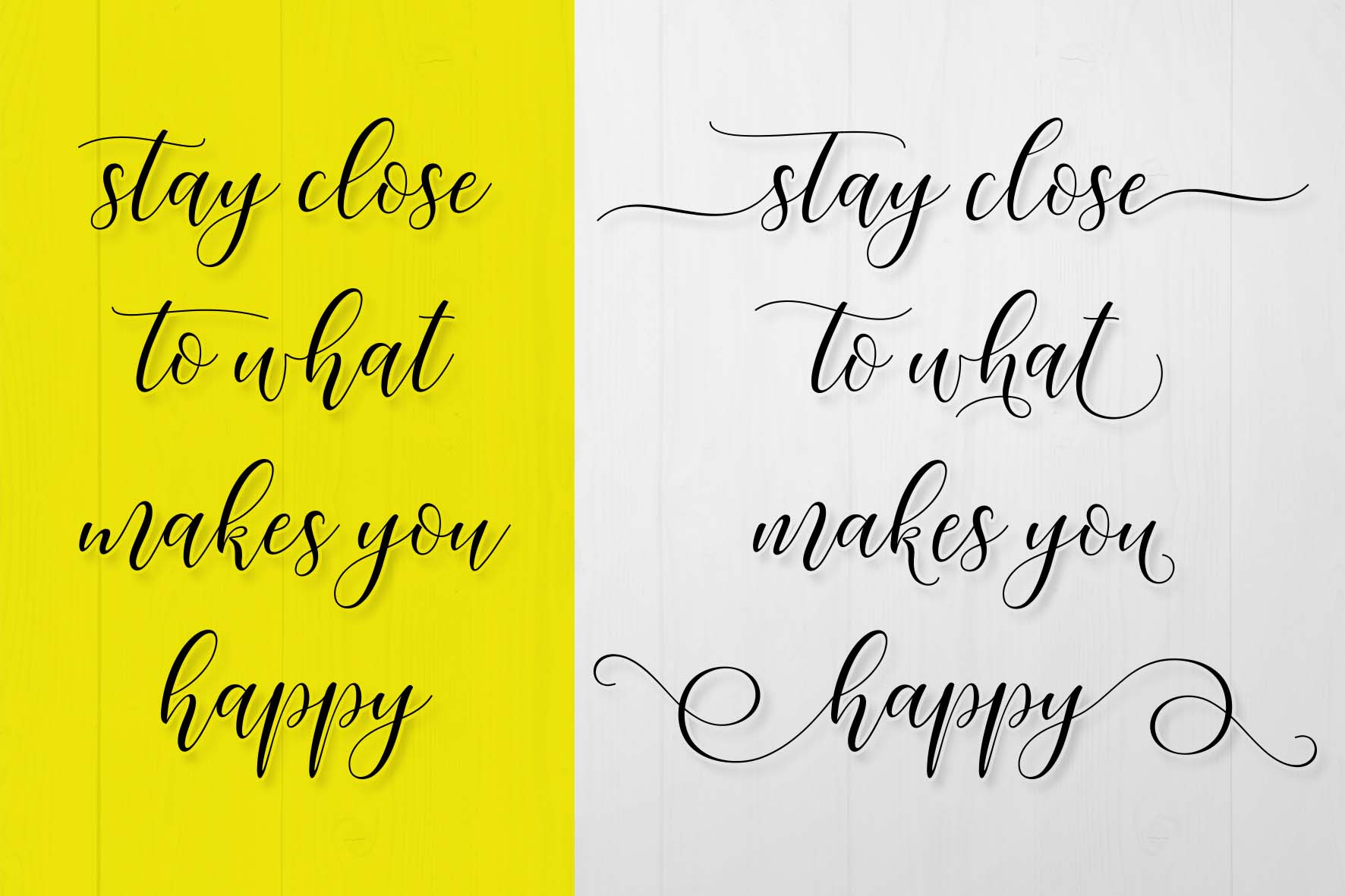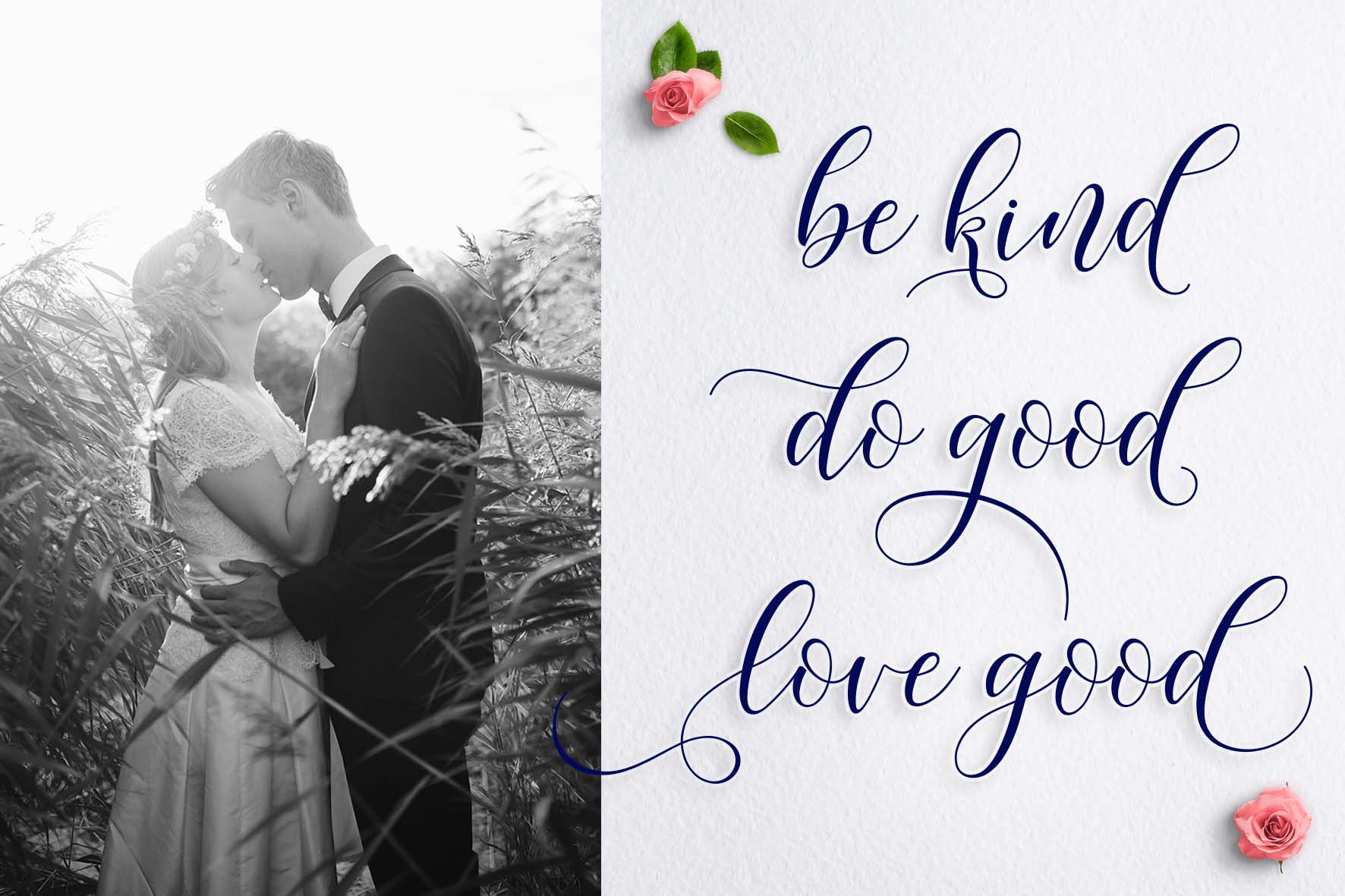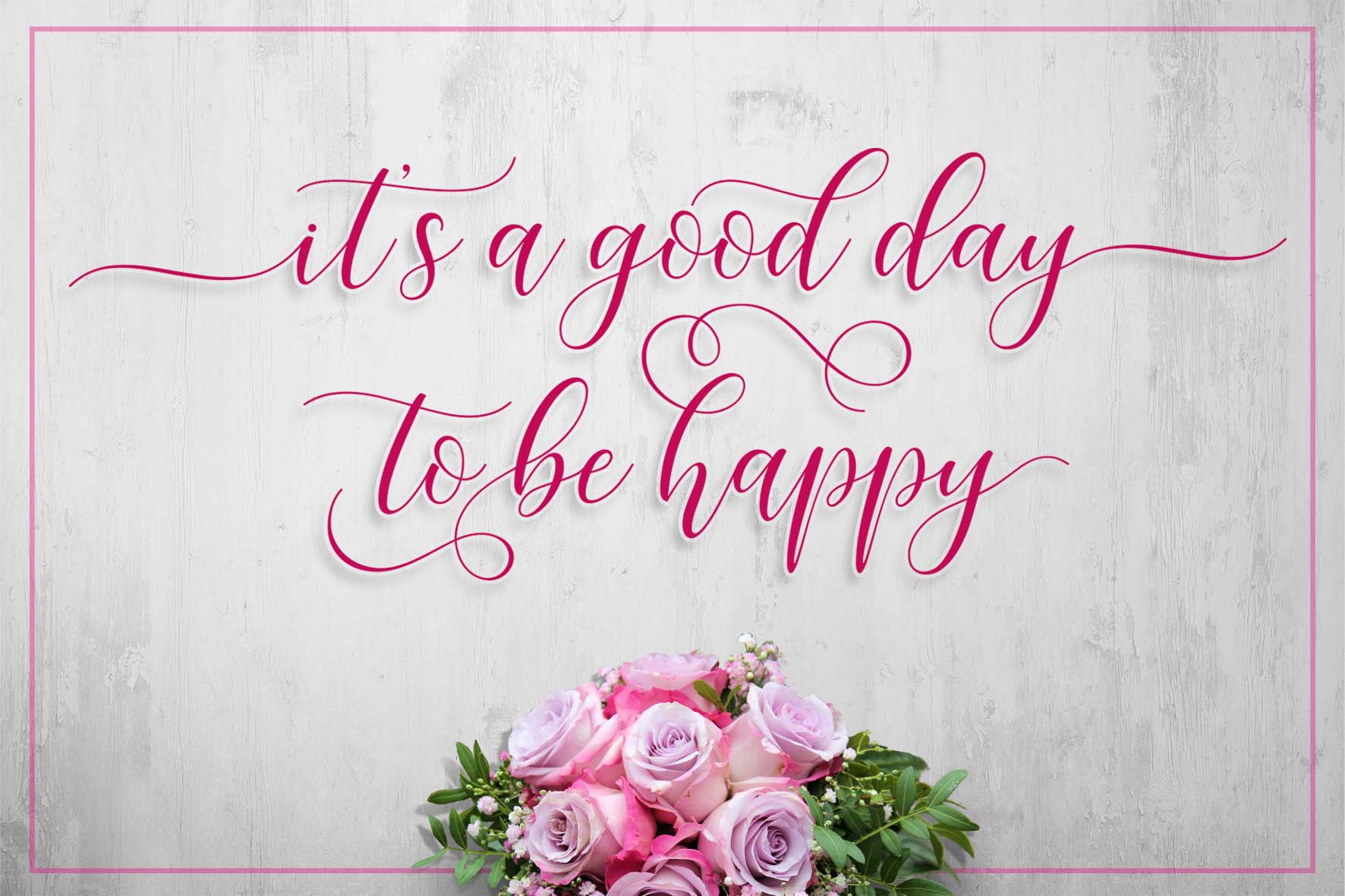
Unlocking the Creative Potential with Maheisa Font
As designers, we’ve all been there – staring at a blank canvas, waiting for the perfect font to bring our creative project to life. It’s that moment when the right typography can make all the difference, elevating our work from ordinary to extraordinary. For those seeking a high-quality design resource, the Maheisa Font is an exceptional choice.
With its modern aesthetic and carefully crafted letters, the Maheisa Font is designed to make a statement. Whether you’re working on a free download or a paid project, this versatile font is sure to impress. Its transparent background and extensive OpenType features make it an ideal choice for designers who value flexibility and creativity.
As a valuable resource for designers, the Maheisa Font offers a unique combination of style and functionality. With over 600 unique glyphs, including alternates and swashes, this font is perfect for designers who want to take their work to the next level.
Key Features of Maheisa Font
• Unique Script Font Style: Maheisa Font offers a beautiful, elegant script font style perfect for creative projects requiring a touch of sophistication.
• High-Quality Design: This font is designed with precision and attention to detail, ensuring a high-quality design resource for any project.
• Transparent Background: Maheisa Font comes with a transparent background, making it ideal for projects where a seamless integration is required.
• Perfect for Creative Projects: Maheisa Font is an excellent choice for designers working on creative projects, such as branding, packaging, and advertising.
Honest Review: Maheisa Font
As a designer, I’m always on the lookout for high-quality design resources to enhance my creative projects. Recently, I came across the Maheisa Font, and I’m excited to share my honest review with you.
• Unique and elegant design aesthetic: The Maheisa Font has a beautiful, modern look that’s perfect for creative projects.
• High-quality design: The font is crisp and clear, making it ideal for both digital and print projects.
While the Maheisa Font is an excellent design resource, there are a few limitations to consider:
• Limited font weights: The font only comes in a few weights, which may limit its use in certain design projects.
• Not ideal for extensive text use: Due to its elegant design, the Maheisa Font may not be the best choice for extensive text use, such as in articles or long-form content.
Overall, I’m impressed with the Maheisa Font, and I believe it’s a valuable addition to any designer’s toolkit. Its unique design aesthetic, high-quality design, and free download make it an excellent resource for creative projects. While it may have some limitations, I highly recommend giving it a try and seeing how it can elevate your designs.
Introduction to Maheisa Font
Maheisa Font is a free design resource ideal for creative projects requiring a high-quality, unique font. Its transparent background makes it versatile for use in various design applications.